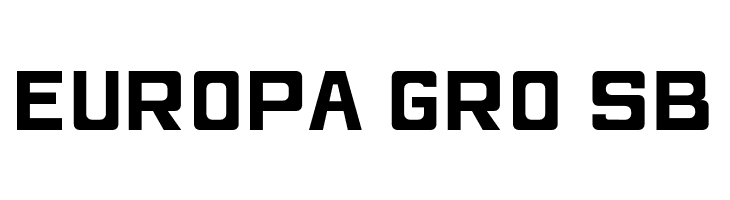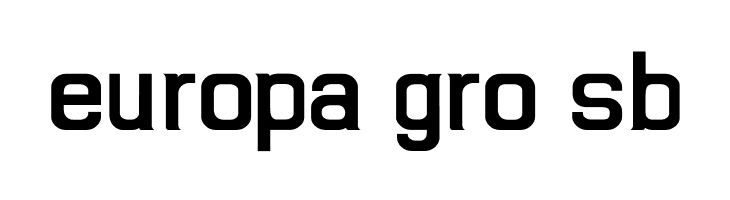
A bold, angular font with dynamic and energetic styling.
A futuristic, geometric font with a tech-inspired design.
A bold, jagged font with a horror-themed, dynamic style.
A bold, geometric font with Art Deco influences, ideal for modern and stylish designs.
An organic, vine-like font with jagged edges and a hand-drawn feel.
A playful, hand-drawn font with a youthful and energetic style.
A whimsical, hand-drawn font with playful, irregular forms and dynamic strokes.
A whimsical, hand-drawn font with irregular strokes and a playful, eerie vibe.
A jagged, hand-drawn font with an edgy, graffiti-like style.
A bold, expressive handwritten font with thick, uneven strokes and a playful style.
A playful, hand-drawn font with dynamic strokes and a whimsical feel.
A bold, geometric font with a modern and uniform appearance.